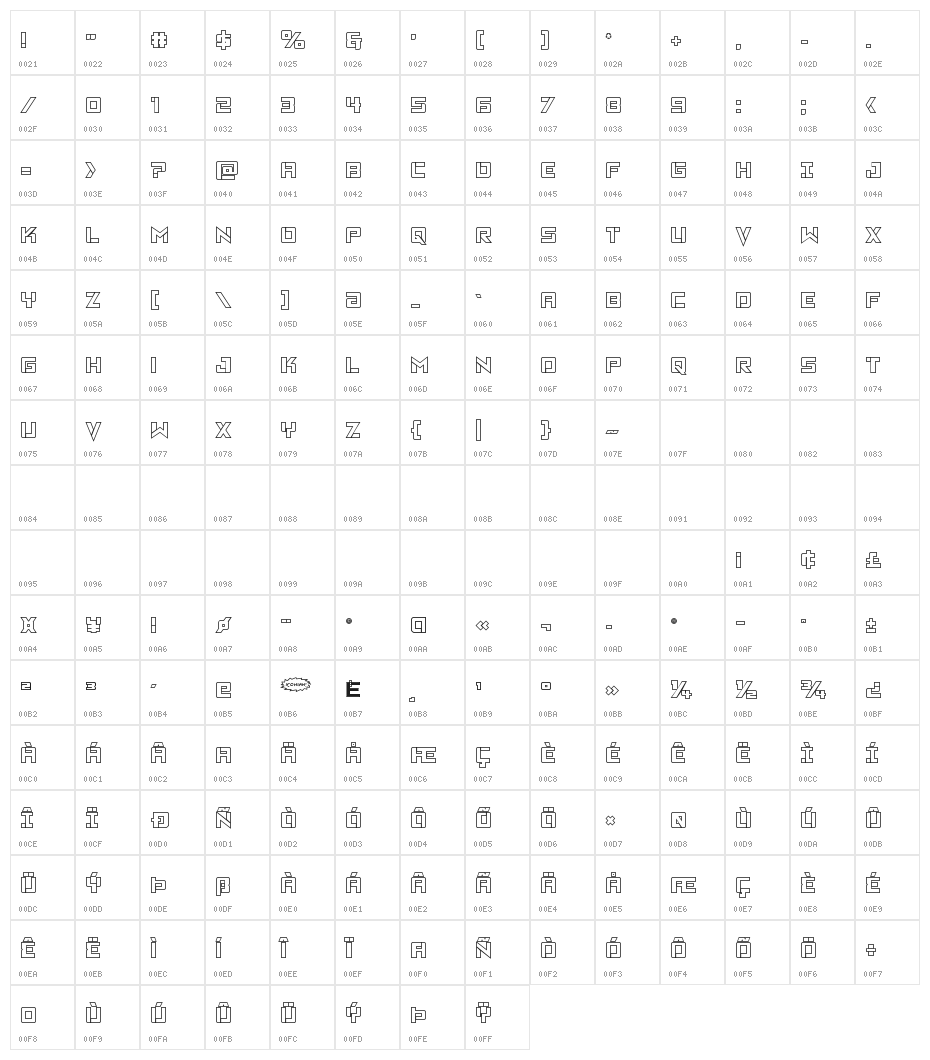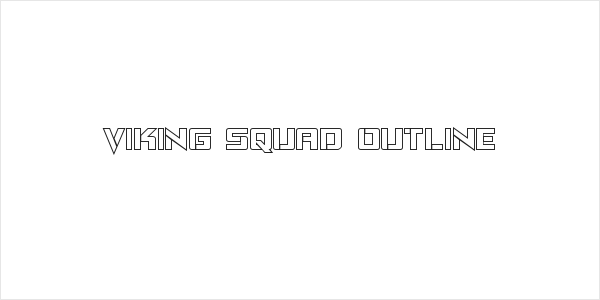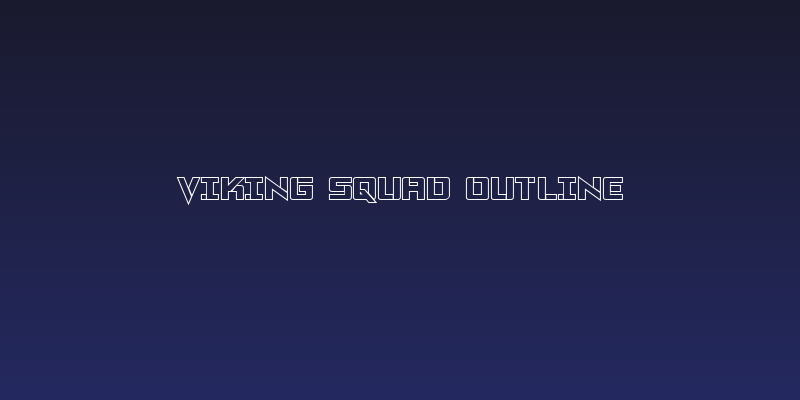
Viking Squad Outline Font
Viking Squad Outline Description
This font features a bold, geometric outline style with a modern and futuristic aesthetic. The characters are constructed with sharp angles and straight lines, giving them a structured and edgy appearance. The uppercase letters are particularly striking, with a uniform height and width that creates a cohesive look across the alphabet. The numbers and special characters maintain the same bold outline, ensuring consistency throughout. This font is ideal for projects that require a strong visual impact and a contemporary feel.
| Proposed Projects | Ideal for branding, logos, posters, and headlines that require a strong visual impact. |